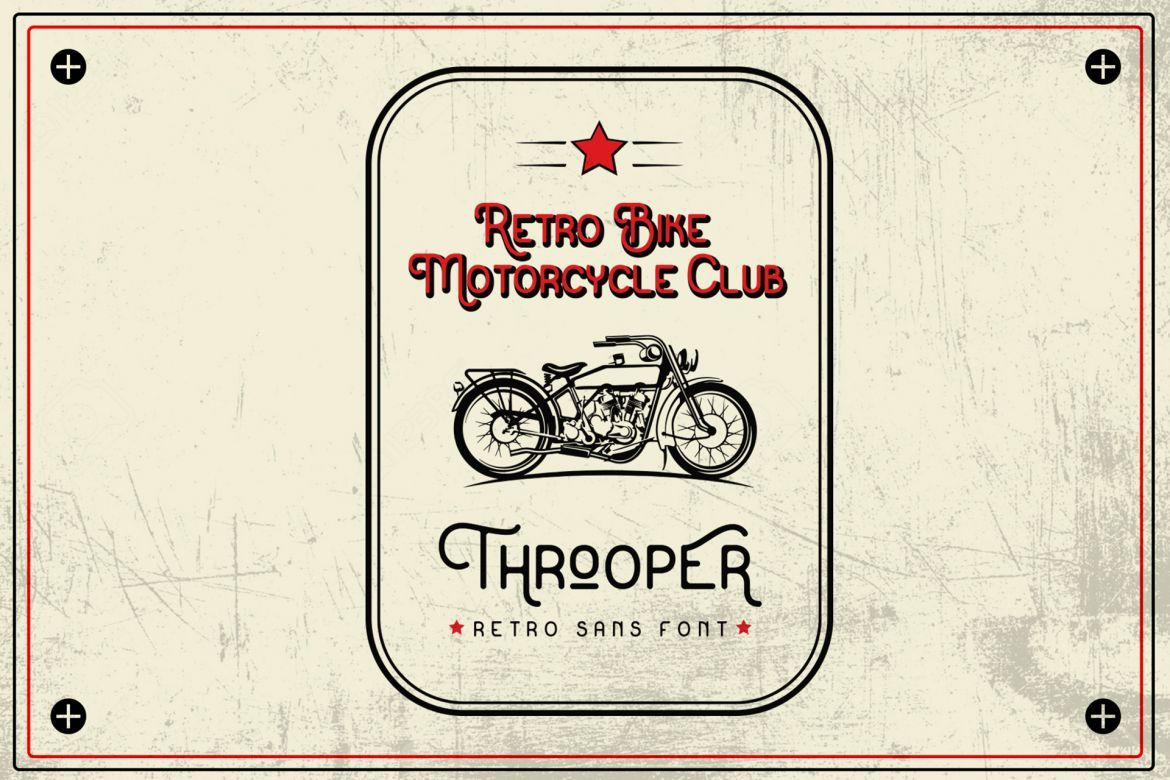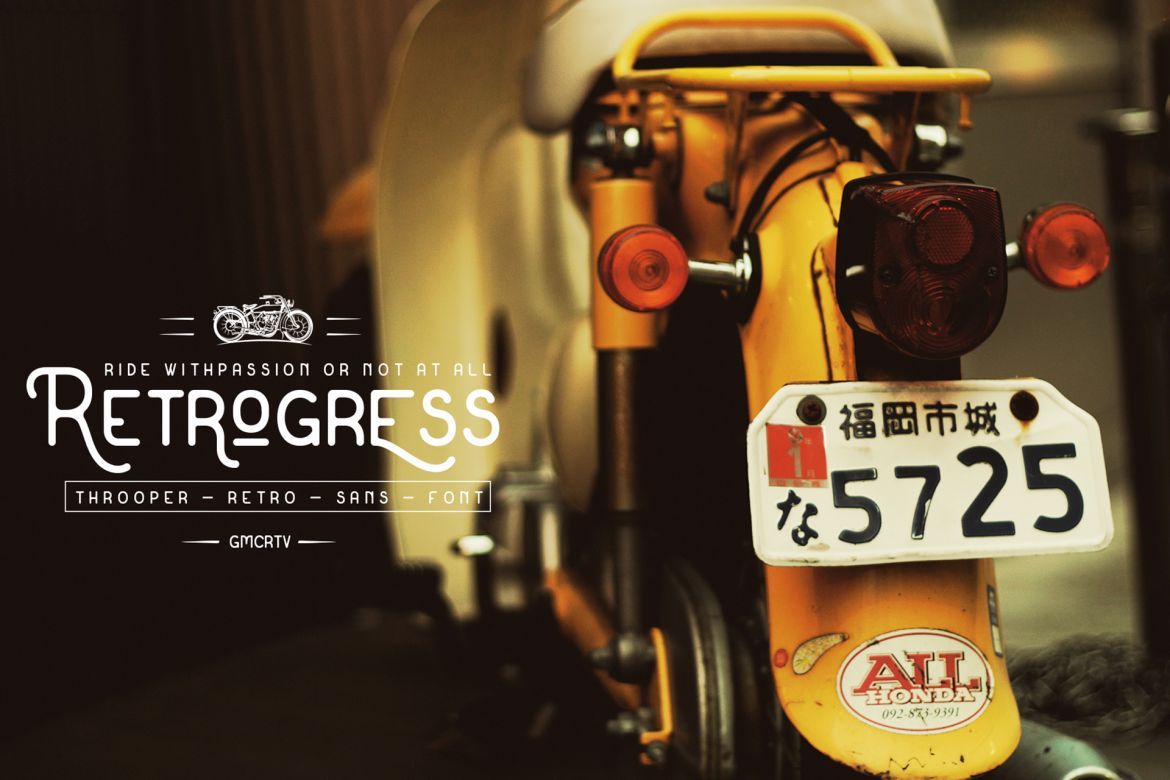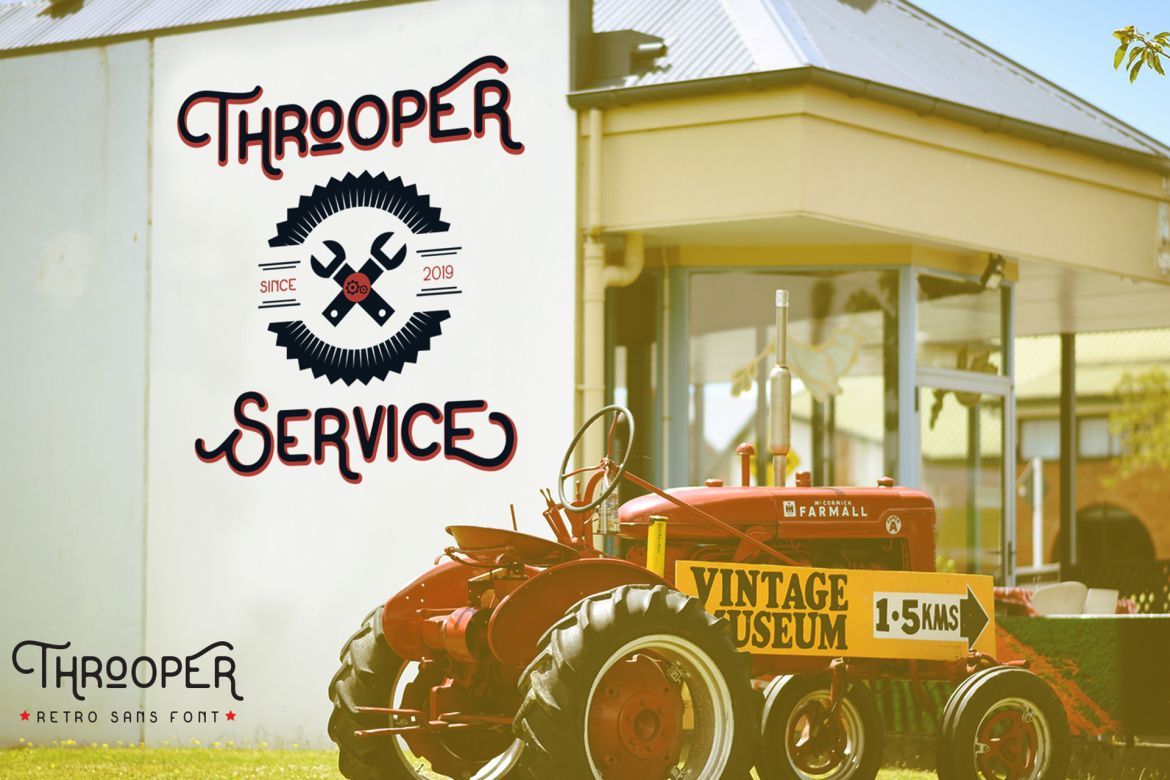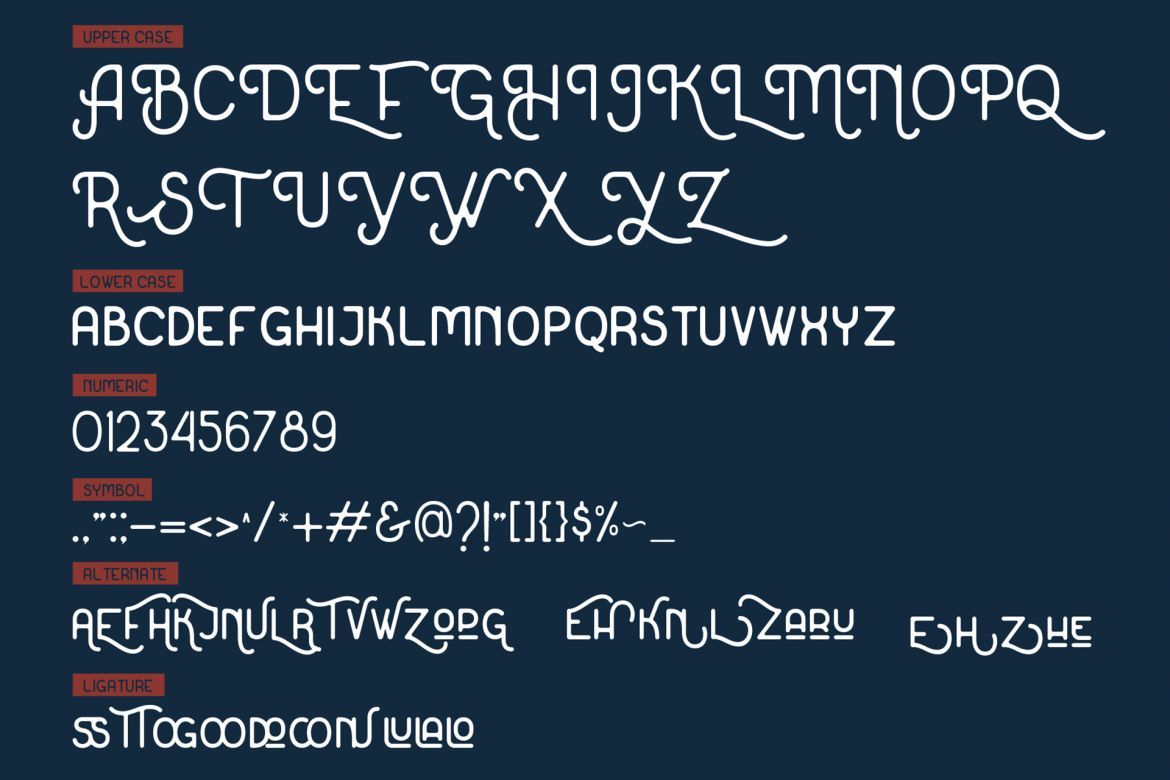
Throoper Retro Font
-- Retro / Strong / Decorative --
Throoper font is a sans font family Inspired by an old school poster design, we try to make it more decorative and fun so it's can useful for any purpose. it's perfect for you to show your design or product in professional way.
USE Throoper font is works great in any branding, logos, magazines, films, poster, flyer, sign board, tees design,etc
• original retro hand drawn font
• perfect for yourdesign with retro style